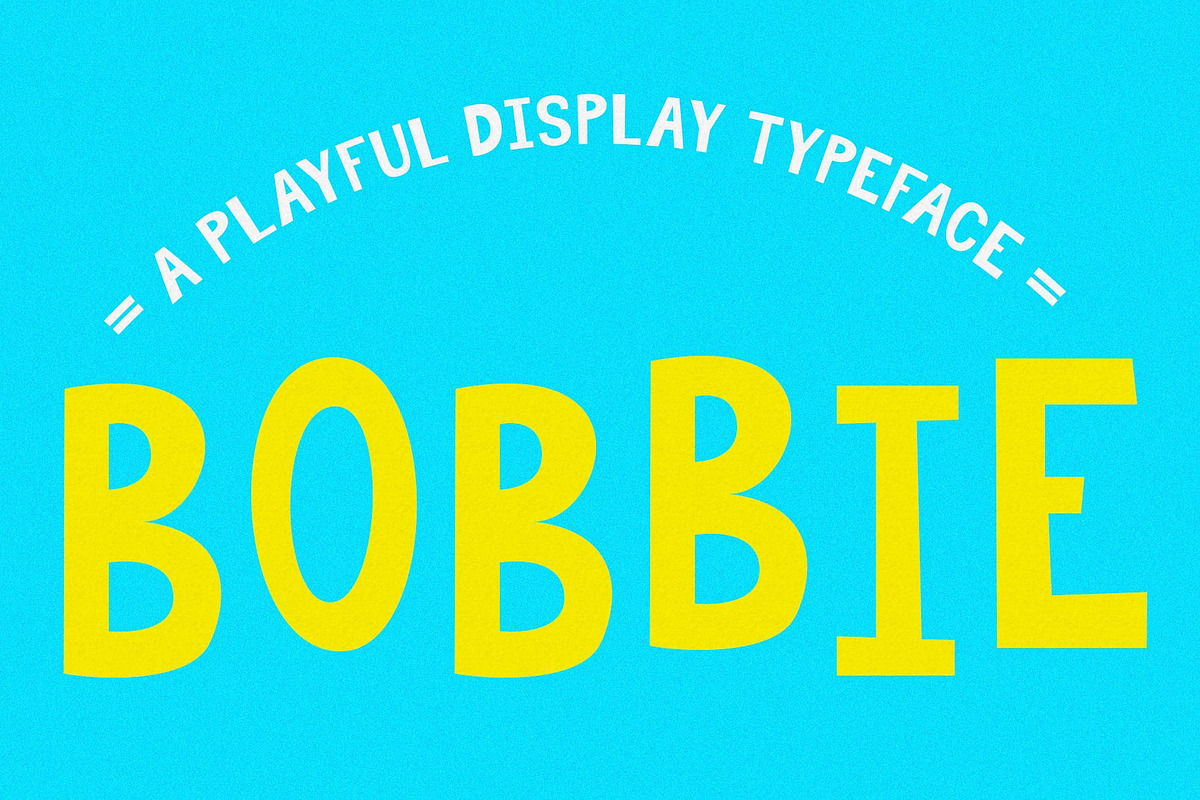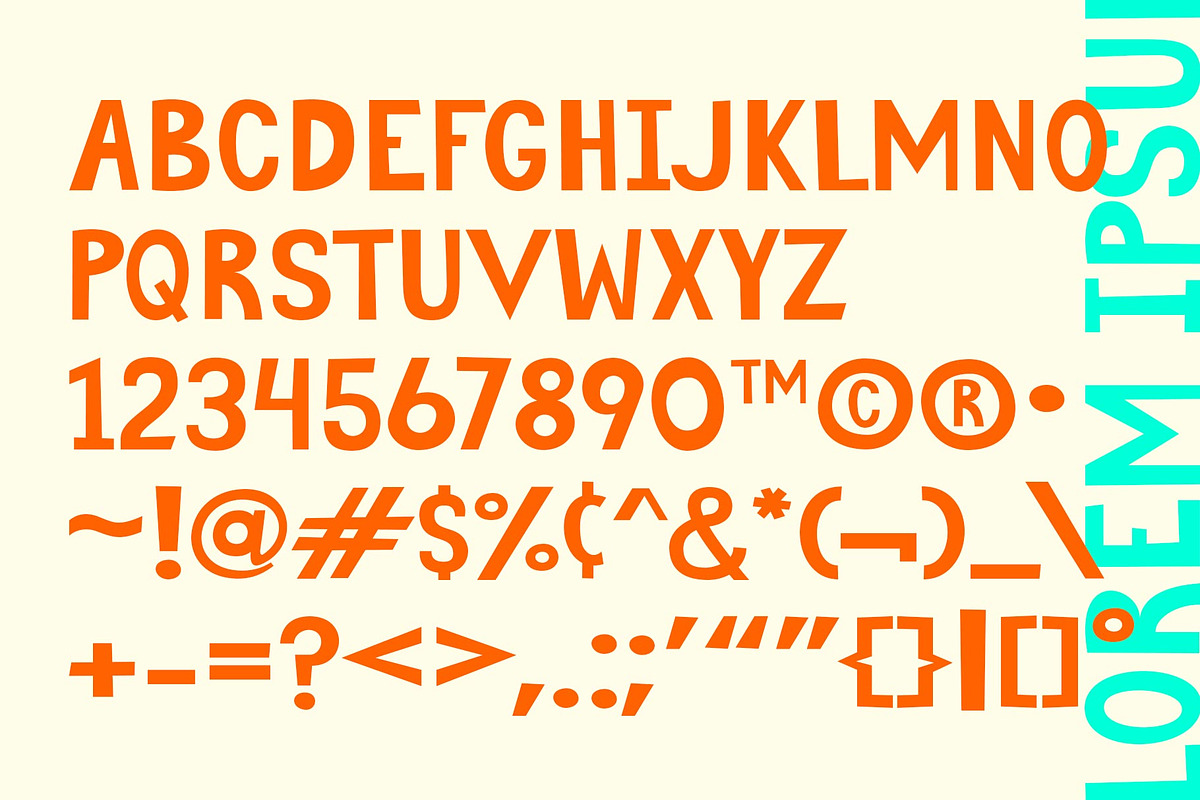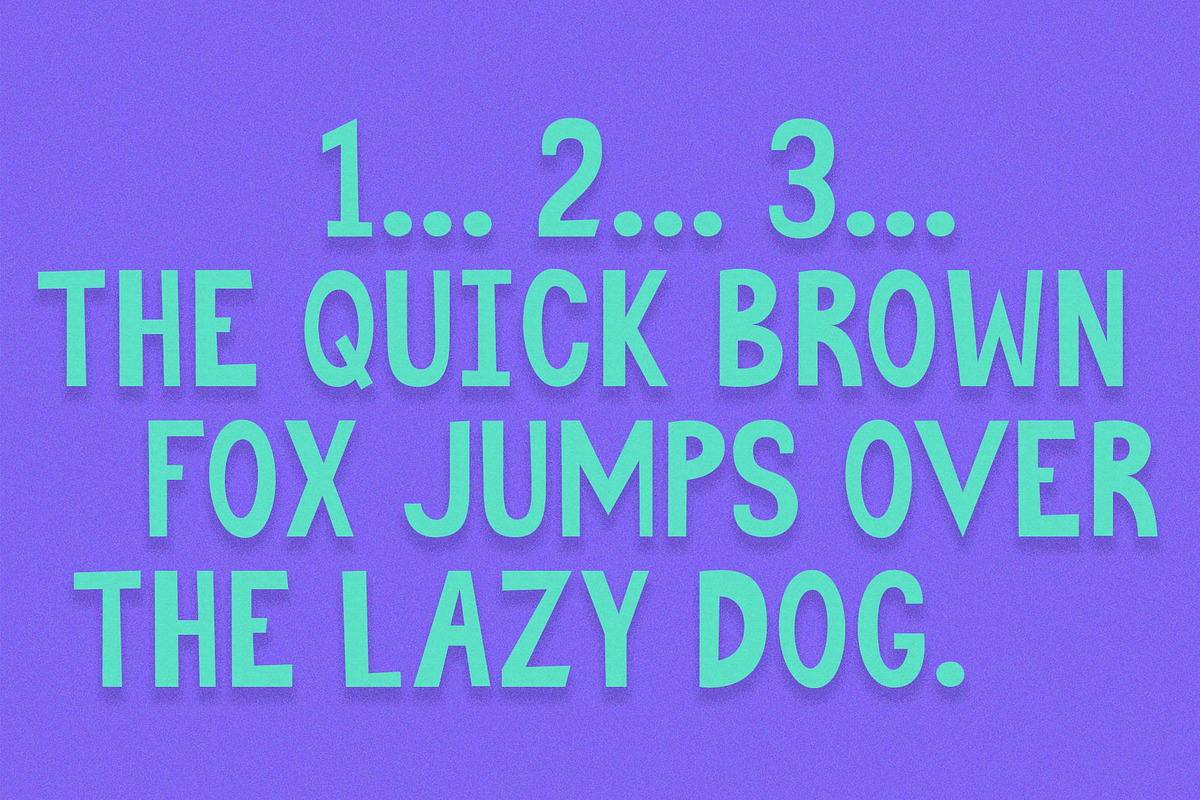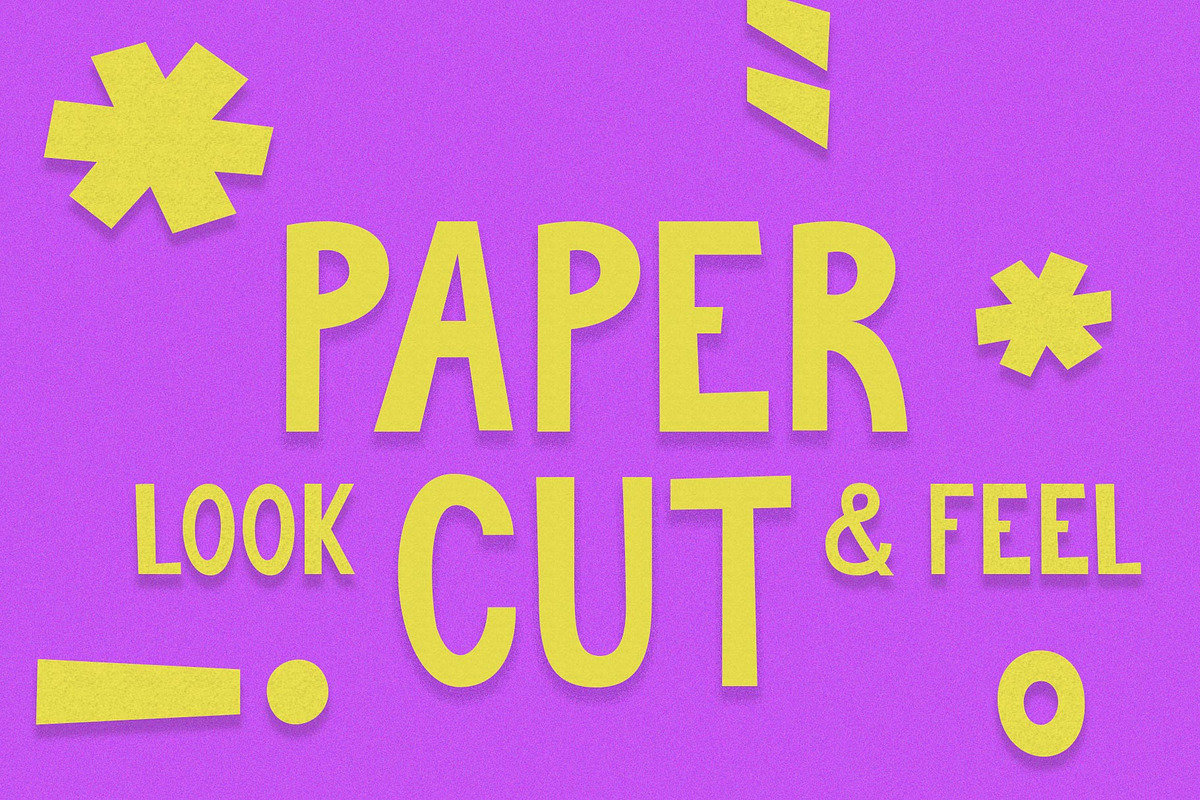
Bobbie
Bobbie is a playful paper cut look and feel display font. Inspired by the typeface in the ending sequence of the animation series Bob's Burgers, I present to you, Bobbie. Available in OTF and TTF